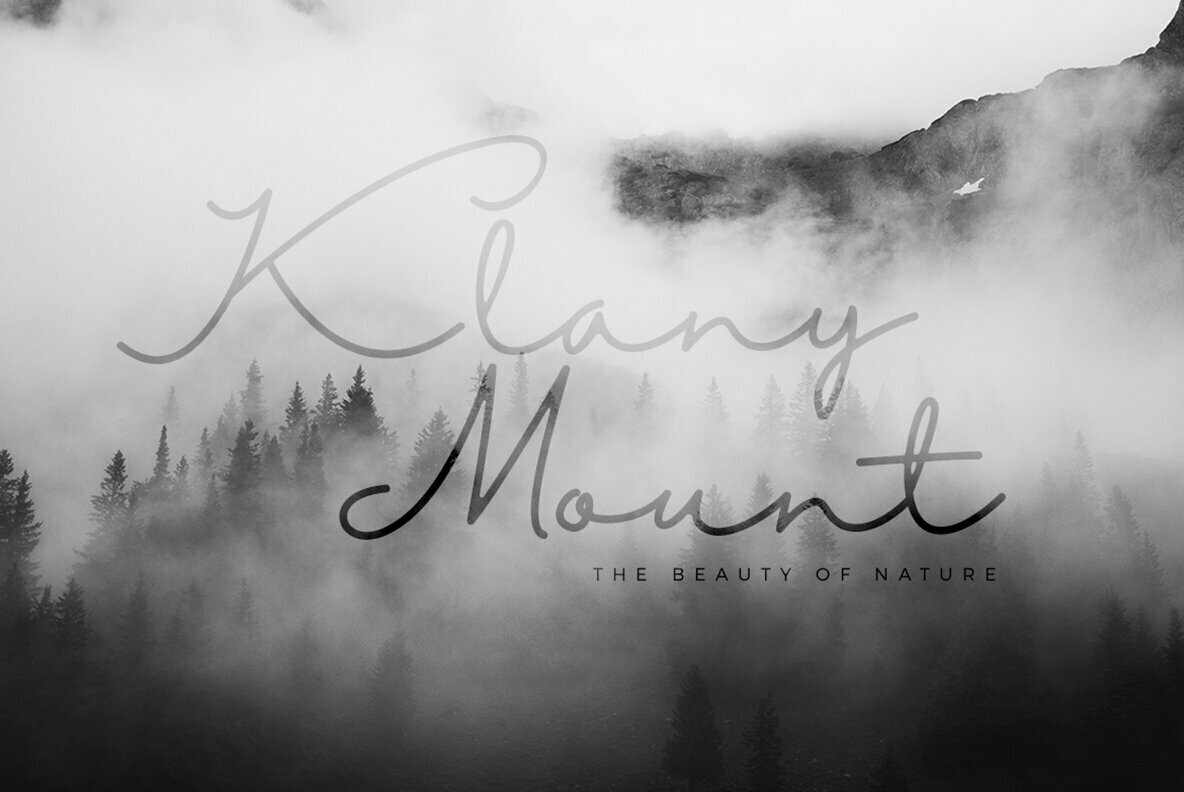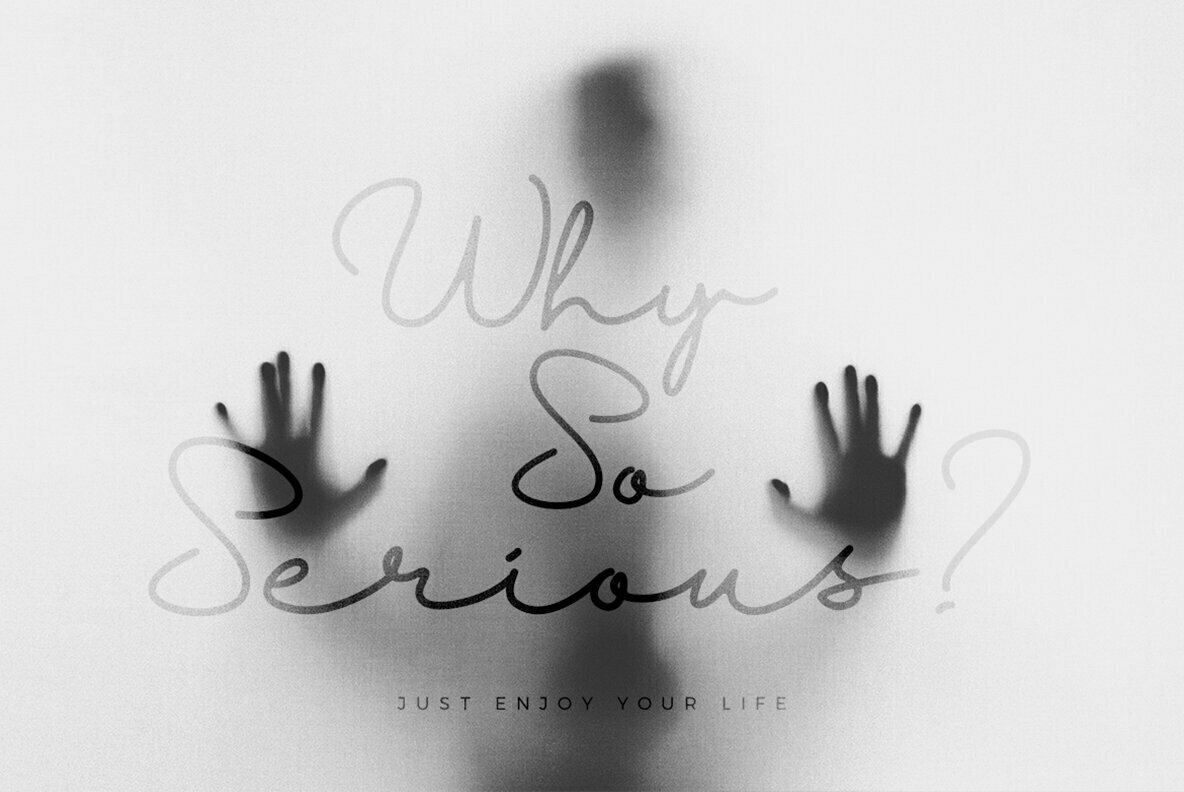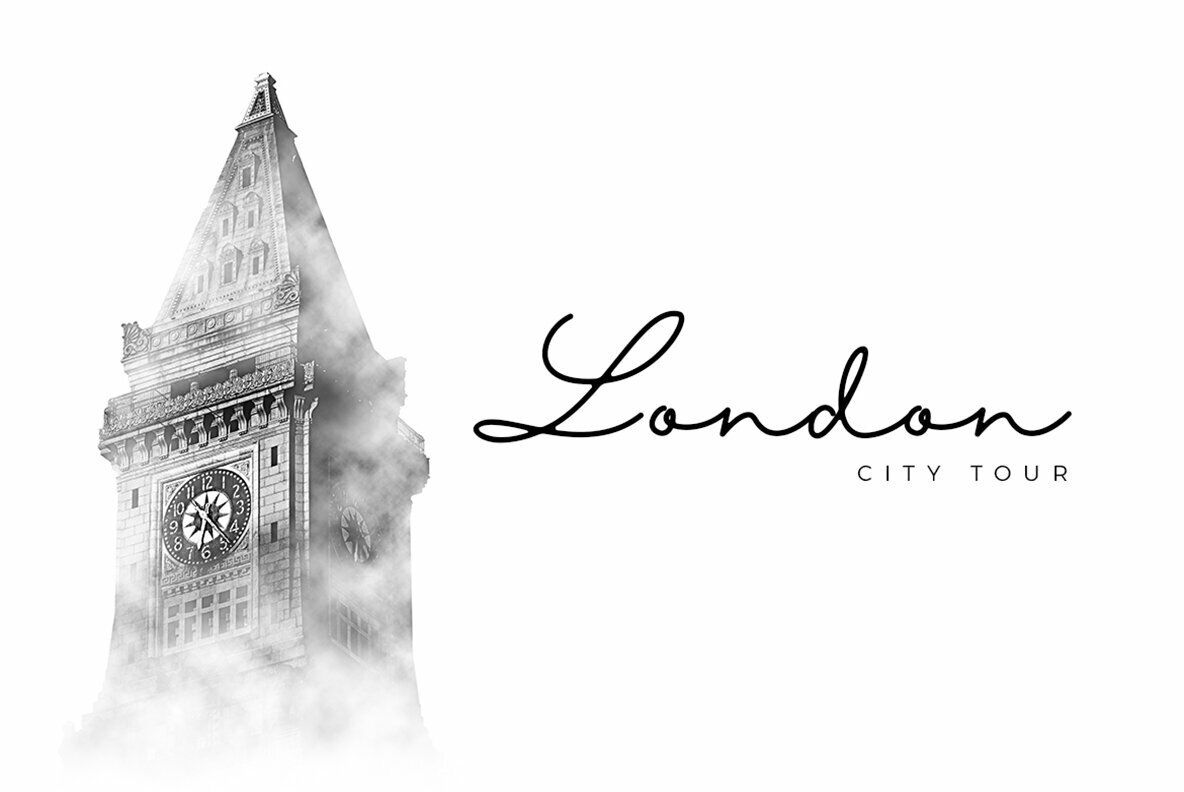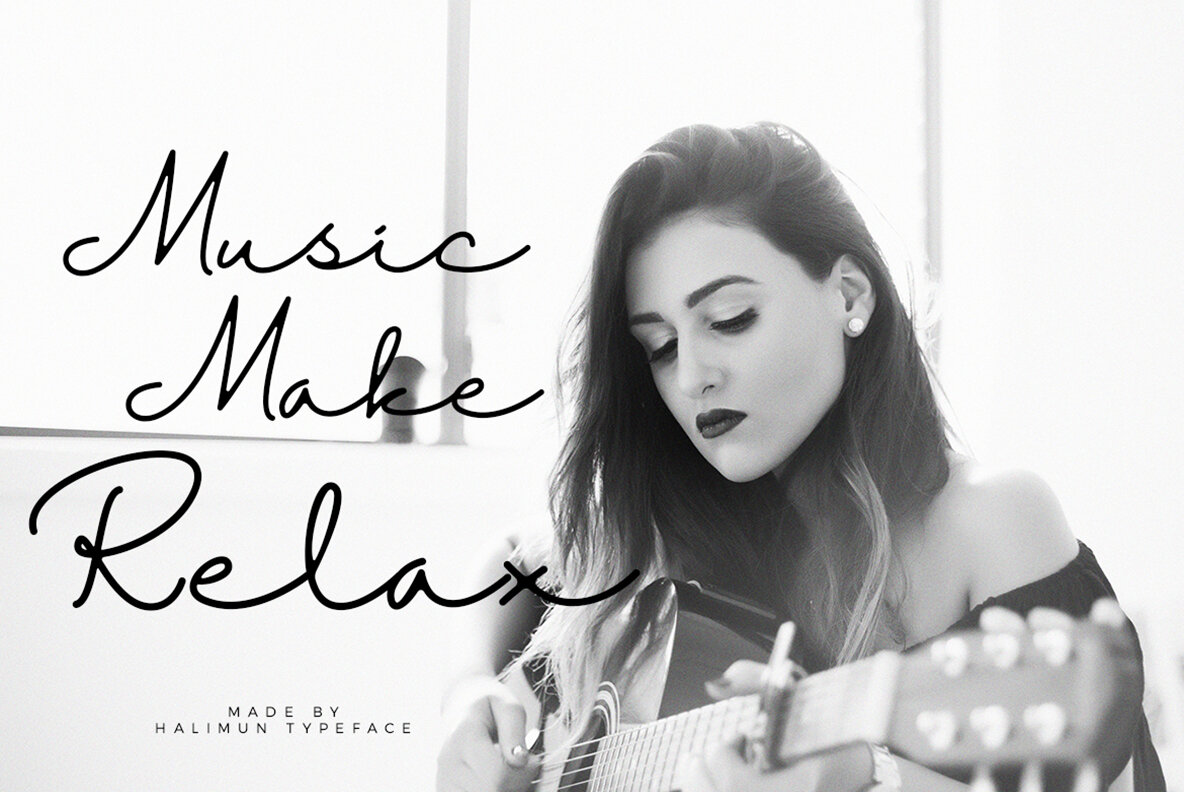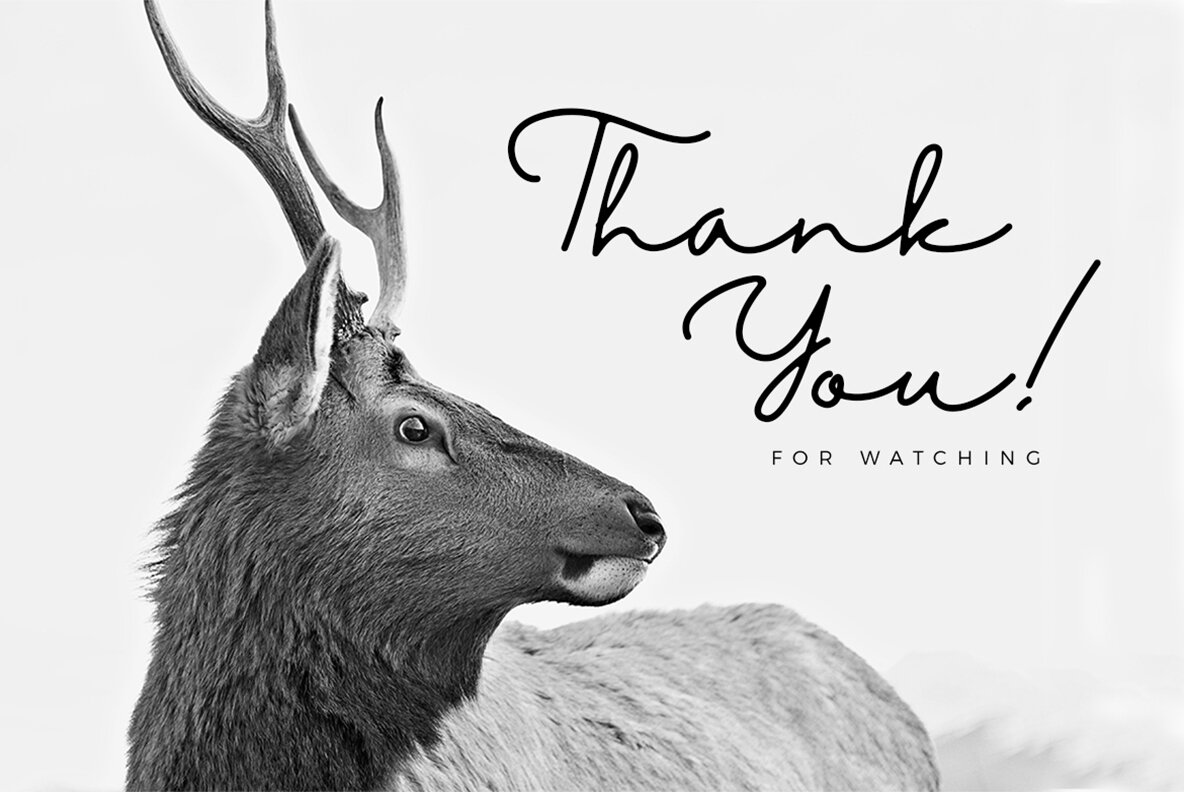
Halimun Script: Modern Elegance in Typography
Introducing Halimun, a script font that embodies modernity and freshness. With its handwritten essence, this font resonates elegance and style, making it an ideal choice for projects that require a touch of sophistication and a personal, natural flair.
• Elegant Handwritten Style – Offers a unique blend of personal touch and professionalism.
• Natural Flow – Designed to look fluid and effortless in any context.
• Versatile Use – Perfect for branding, invitations, and designs requiring a script feel.